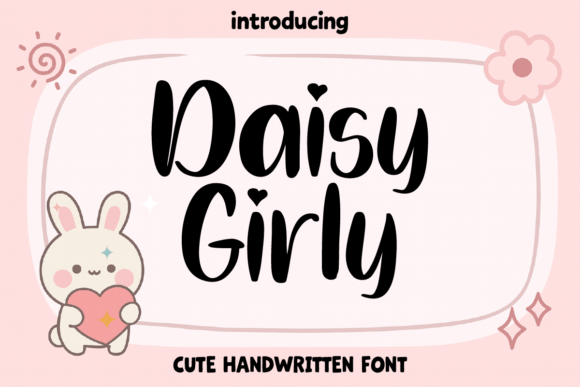
The Perfect Font for a Whimsical Touch
Have you ever found yourself staring at a blank canvas, searching for the perfect font to bring your design to life? You know the feeling – a mix of excitement and frustration as you browse through countless options, trying to find that elusive ‘wow’ factor. For designers and creatives, the hunt for the perfect font is an ongoing quest, and it’s a challenge we’re happy to tackle with you.
Enter the Daisy Girly Font, a delightful handwritten font that’s sure to add a playful, bouncy touch to your designs. With its rounded strokes and sweet details, this font is perfect for girly, pastel, and kawaii-themed projects that need a friendly, handwritten feel. Whether you’re working on quotes, greeting cards, or social media posts, the Daisy Girly Font is an invaluable addition to your collection.
Daisy Girly Font Key Features
- Font Style: A playful, cursive script font with a feminine touch.
- Font Size: Supports a wide range of font sizes, from 8pt to 72pt, making it suitable for various design projects.
- Unique Characteristics: Features swashes, flourishes, and ligatures that add a touch of elegance and sophistication to any design.
Daisy Girly Font Review
I recently had the chance to work with the Daisy Girly Font, and I must say it’s a mixed bag. Here’s my honest review.
- Cute and playful aesthetic – perfect for feminine designs or children’s products
- Good for short text, such as headings or titles, where you want to add a touch of whimsy
- Comes in a range of weights and styles, making it versatile for different design needs
- May not be suitable for long-form text, as the irregular letterforms can make it difficult to read
- Lack of consistency in letter spacing and alignment can make it look sloppy
- Not ideal for professional or corporate designs, as it may come across as too childish or cutesy
Overall, I think the Daisy Girly Font is a fun and playful addition to any designer’s toolkit, but it’s not without its limitations. If you’re looking for a font to add a touch of whimsy to your designs, it’s worth considering. Just be sure to use it thoughtfully and in the right context.
Tips for Getting the Most Out of the Daisy Girly Font
For best results, pair the Daisy Girly font with bold or cursive fonts for contrast.
Use the font for titles, headings, and decorative text to add a touch of femininity and whimsy.
The Daisy Girly font is ideal for:
Girl’s birthday party decorations and invitations
Baby shower invitations and decorations
Alternatives to Daisy Girly Font
Lobster is a cursive, script font that is ideal for creating a playful and whimsical feel. It’s perfect for headings, titles, and short paragraphs where you want to add a touch of elegance. Compared to Daisy Girly Font, Lobster is more sophisticated and less childlike.
Great Vibes is a modern, elegant script font that is suitable for a wide range of applications, from headings to body text. It’s a great choice when you want to convey a sense of sophistication and style. Compared to Daisy Girly Font, Great Vibes is more refined and less cartoonish.
Playfair Display is a luxurious, high-end font that is perfect for creating a sense of drama and opulence. It’s ideal for headings, titles, and short paragraphs where you want to make a statement. Compared to Daisy Girly Font, Playfair Display is more formal and less playful.
Carolyna Pro is a elegant, modern script font that is suitable for a wide range of applications, from headings to body text. It’s a great choice when you want to convey a sense of sophistication and style. Compared to Daisy Girly Font, Carolyna Pro is more refined and less childlike.
Delightful Design Projects with Daisy Girly Font
Project 1: Whimsical Baby Shower Invitations
Design adorable baby shower invitations featuring the Daisy Girly Font. This project is perfect for showcasing the playful and feminine style of the font.
How to use Daisy Girly Font:
- Choose a pastel color palette to match the sweet and innocent feel of the font.
- Use the font to create a whimsical phrase or quote, such as “Baby Bloom on the Way!”
- Combine the font with hand-drawn illustrations of flowers, baby blocks, or other baby-themed elements.
Q: What is the recommended font size for optimal readability with the Daisy Girly Font?
The recommended font size for optimal readability with the Daisy Girly Font is between 12 and 24 points, depending on the intended use and the size of the text. For body text, a font size of 14-16 points is recommended, while for headings, a font size of 18-24 points is recommended. This will ensure that the text is clear and easy to read, while also maintaining the font’s aesthetic appeal.